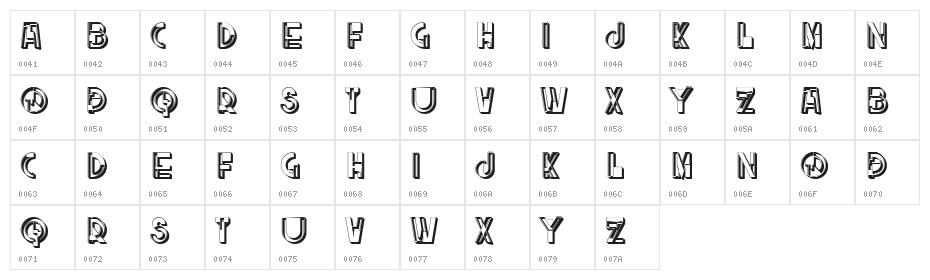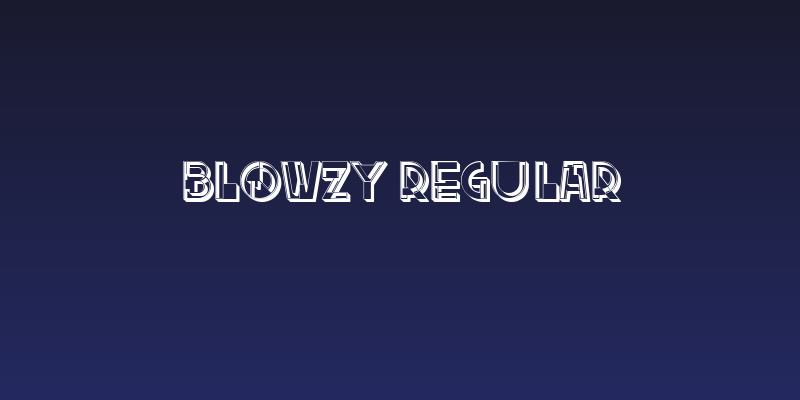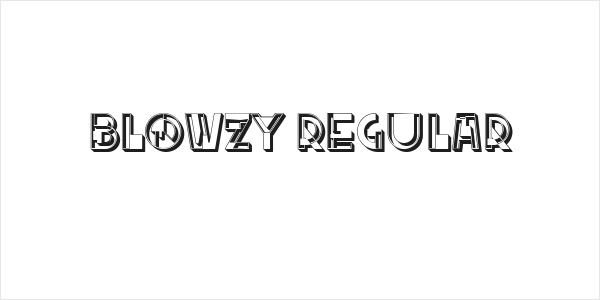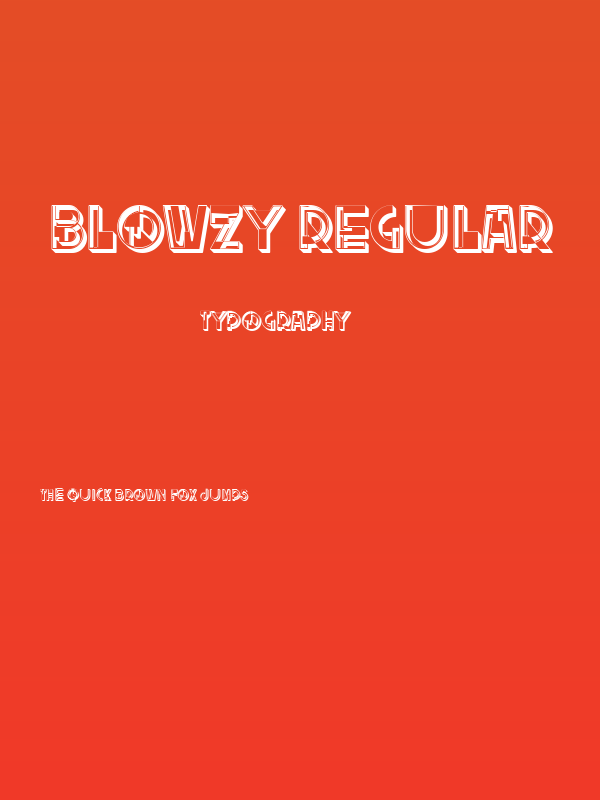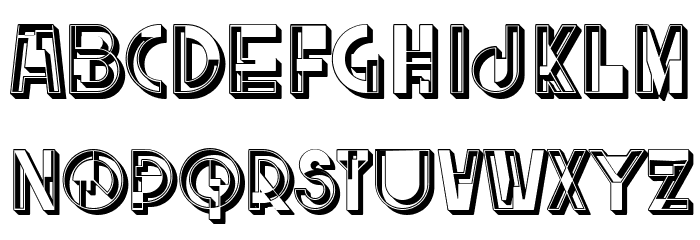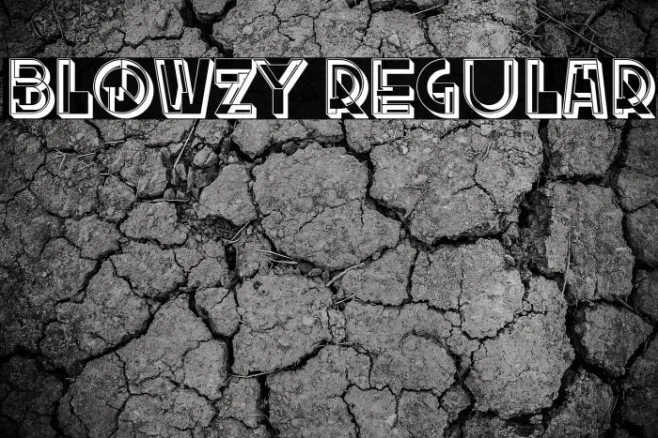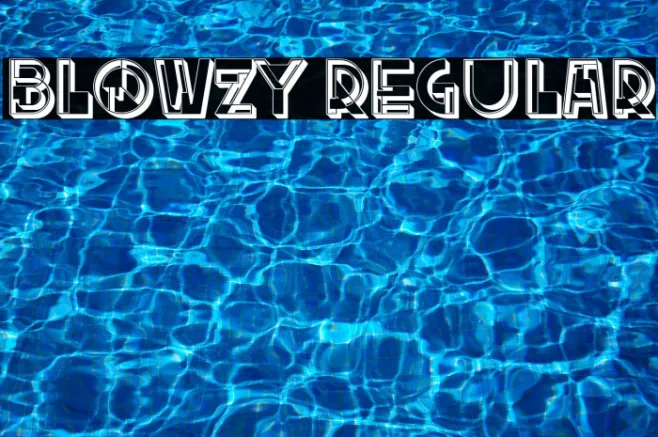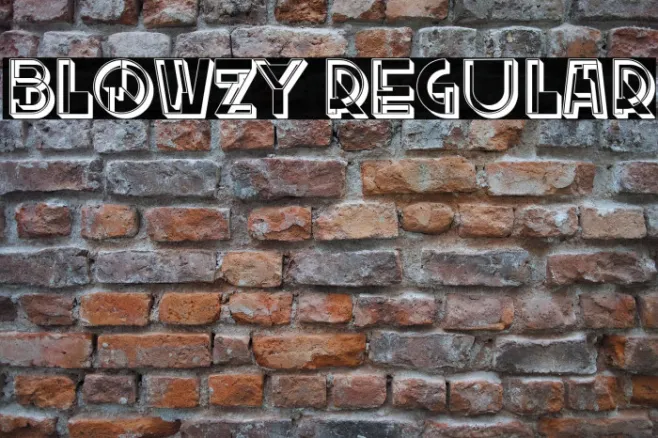
Blowzy Regular Font
Blowzy Regular Description
This font features a bold, geometric design with a three-dimensional effect created by overlapping lines and shadows. The uppercase letters are particularly striking, with a strong presence and a modern, industrial feel. The lowercase letters maintain the same style, ensuring consistency throughout. The numbers and special characters are designed to match the boldness and intricacy of the alphabet, making this font suitable for attention-grabbing designs. The overall style is decorative, making it ideal for projects that require a unique and impactful visual element.
| Proposed Projects | Ideal for posters, logos, headlines, and any design that requires a bold, eye-catching font. |